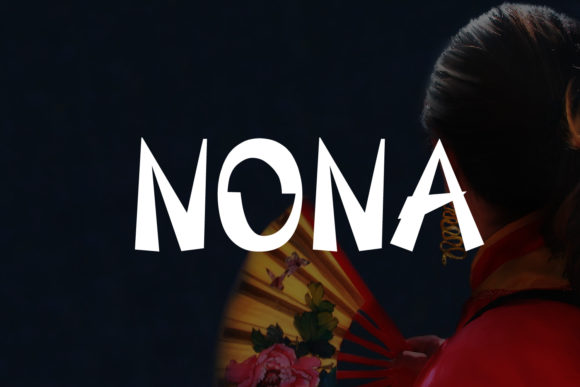
Prepare to be mesmerized by Nona Font, the exquisite Japanese-inspired display font that will transform your designs into captivating expressions of Eastern elegance. Embark on a typographic journey that blends tradition and modernity, where each character is a brushstroke of artistry.
Nona Font is more than just a font; it's a gateway to a world of serene beauty and timeless allure. Its meticulously crafted glyphs evoke the spirit of ancient Japan, whispering tales of cherry blossoms, tranquil gardens, and mystical creatures. Whether you're designing a website, creating a logo, or crafting a marketing campaign, Nona Font will add a touch of sophistication and charm that will leave a lasting impression.
Immerse yourself in the rich cultural heritage of Japan as you explore the depths of Nona Font. Each letter, each line, each curve is a testament to the skill and dedication of its creator, da_only_aan. This font is not merely a collection of characters; it's an artistic masterpiece that captures the essence of Japanese aesthetics.
With Nona Font at your disposal, you'll discover endless possibilities for creative expression. Its versatility knows no bounds, adapting seamlessly to a myriad of design projects. From traditional Japanese-themed designs to contemporary creations with a hint of Eastern flair, Nona Font will elevate your work to new heights.
Step into the realm of visual enchantment as Nona Font transforms your designs into captivating works of art. Its unique Eastern charm will captivate your audience, drawing them into a world of serenity and beauty. Experience the magic of Japanese calligraphy as Nona Font weaves its spell, leaving an indelible mark on the hearts and minds of your viewers.
Nona Font is more than just a font; it's an experience. It's an invitation to explore the depths of Japanese culture and tradition, to embrace the beauty of simplicity, and to create designs that resonate with timeless elegance. Download Nona Font today and unlock the power of Eastern aesthetics in your creative endeavors.